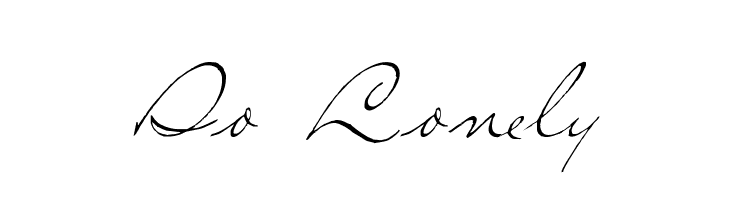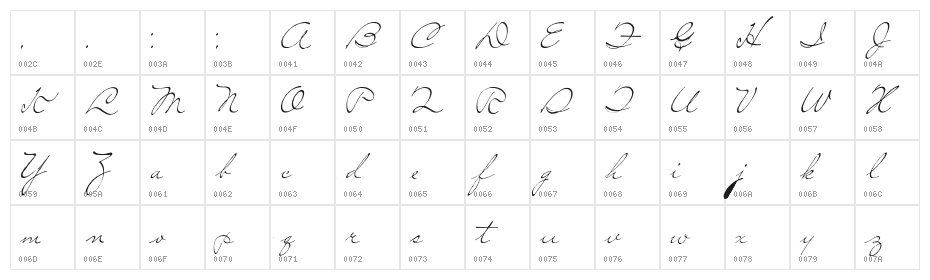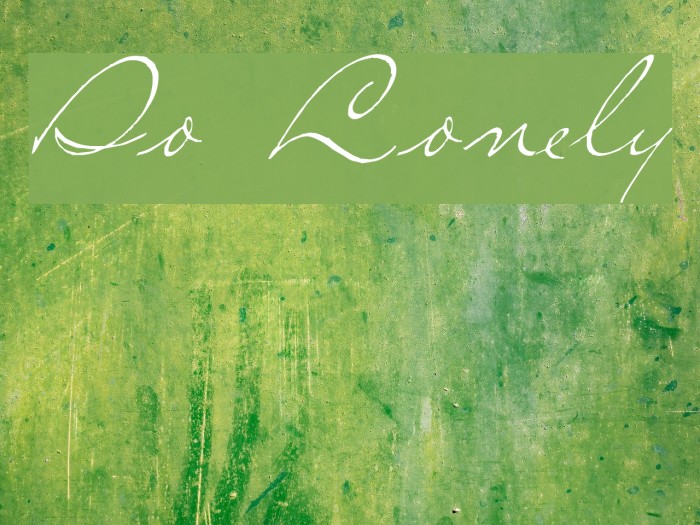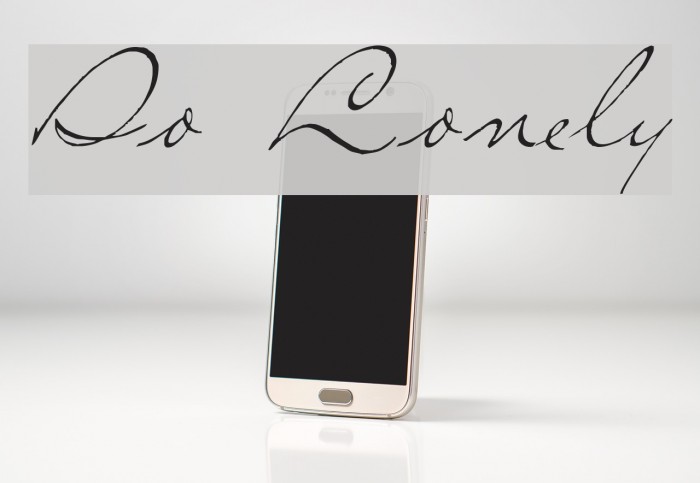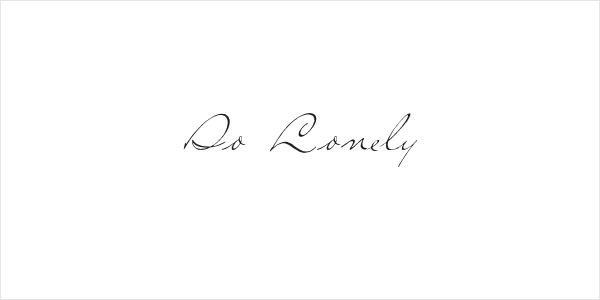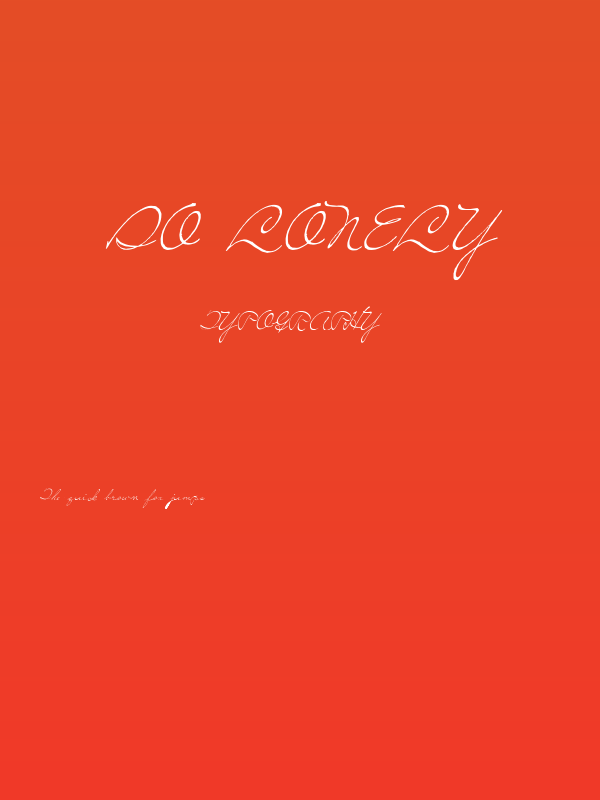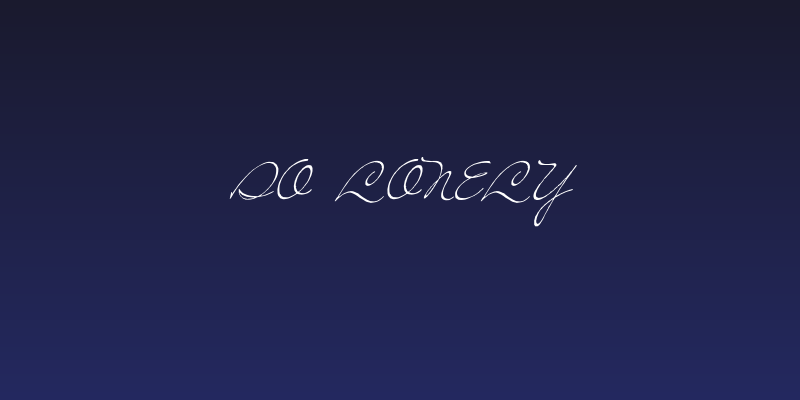
So Lonely Font
So Lonely Description
This elegant script font exudes a sense of sophistication and fluidity, characterized by its graceful, flowing strokes and delicate curves. The uppercase letters are ornate, with sweeping lines that create a sense of movement and elegance. The lowercase letters maintain a consistent style, with elongated ascenders and descenders that enhance the font's overall fluidity. The characters are connected in a cursive manner, giving the text a handwritten appearance. This font is perfect for projects that require a touch of elegance and personal flair, such as invitations, greeting cards, and branding materials. Its artistic style makes it suitable for decorative purposes, while its readability ensures it remains functional.
| Use Case | Invitations, Decorative text, Branding |
| Proposed Projects | Ideal for wedding invitations, elegant branding, greeting cards, and decorative projects. |